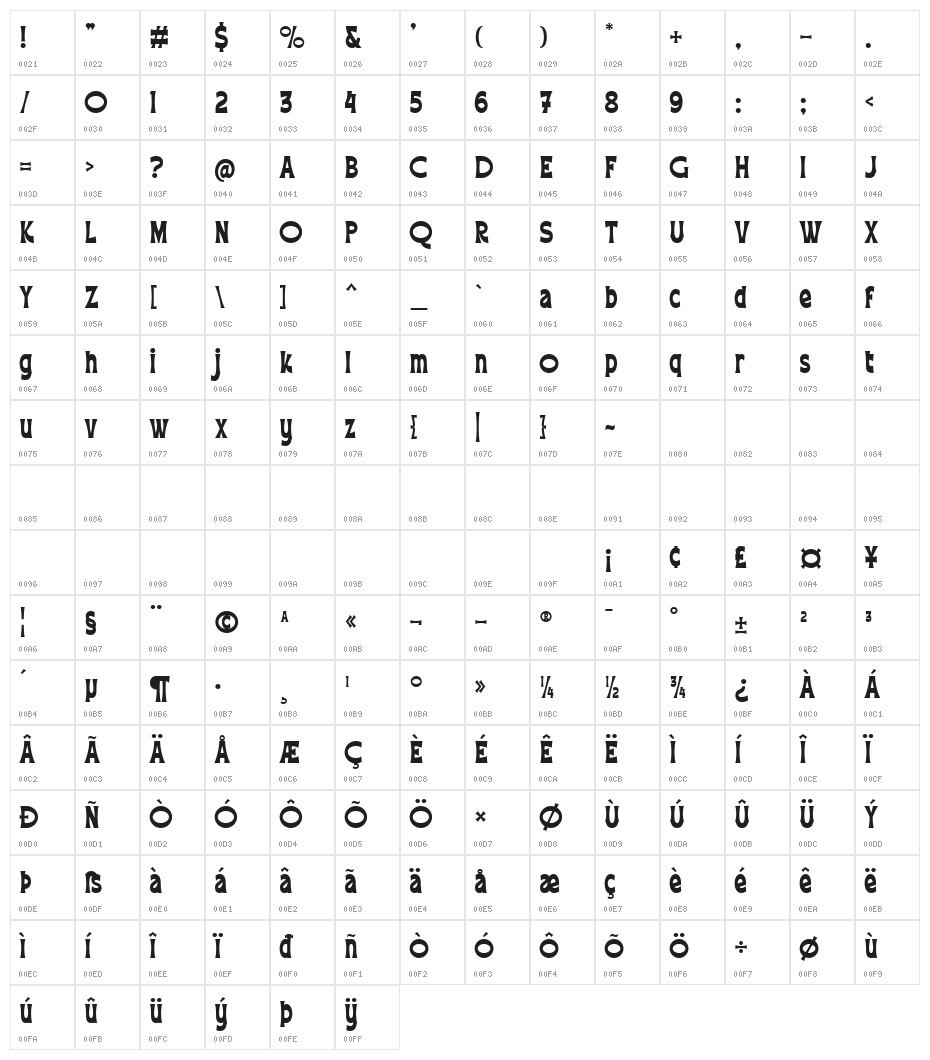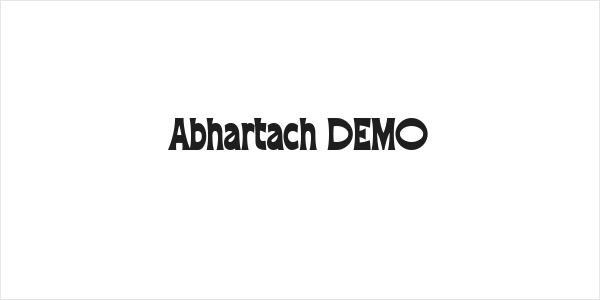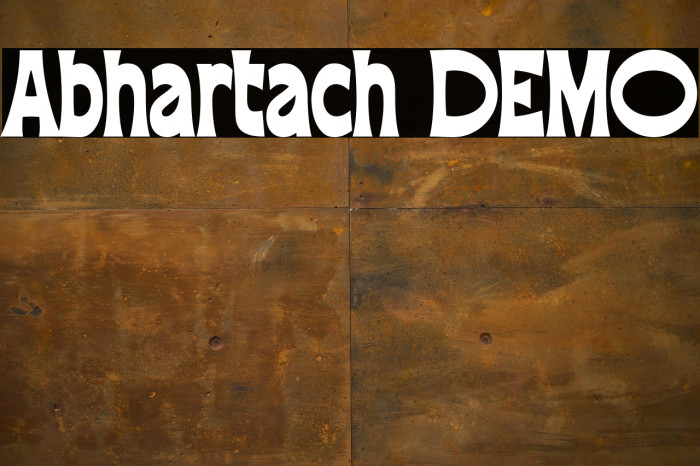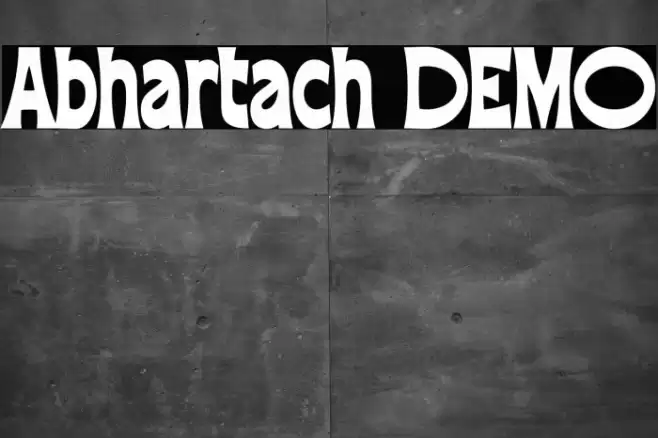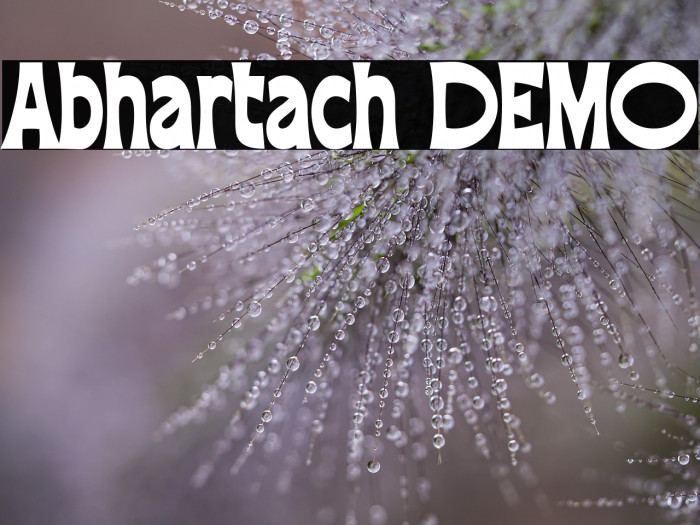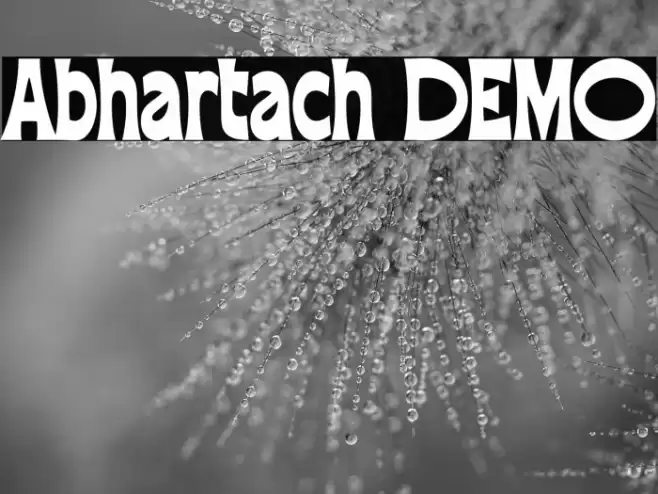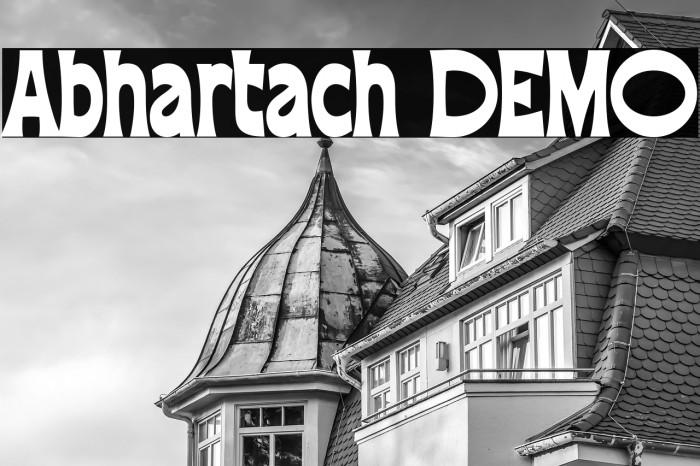
Abhartach DEMO Font
Abhartach DEMO Description
This font features a bold and dynamic style with a strong presence. The characters are crafted with a unique flair, showcasing exaggerated curves and angles that give it a playful yet commanding appearance. The uppercase letters are particularly striking, with a wide stance and distinctive shapes that make each letter stand out. The lowercase letters maintain the boldness of the uppercase, with slightly more rounded edges, adding a touch of softness to the overall look. The numerals and special characters are equally bold, ensuring consistency across all elements. This font is designed to capture attention and convey a sense of energy and creativity.
| Overall Style | Decorative |
| Proposed Projects | Ideal for posters, headlines, branding, and any project requiring a bold, creative touch. |